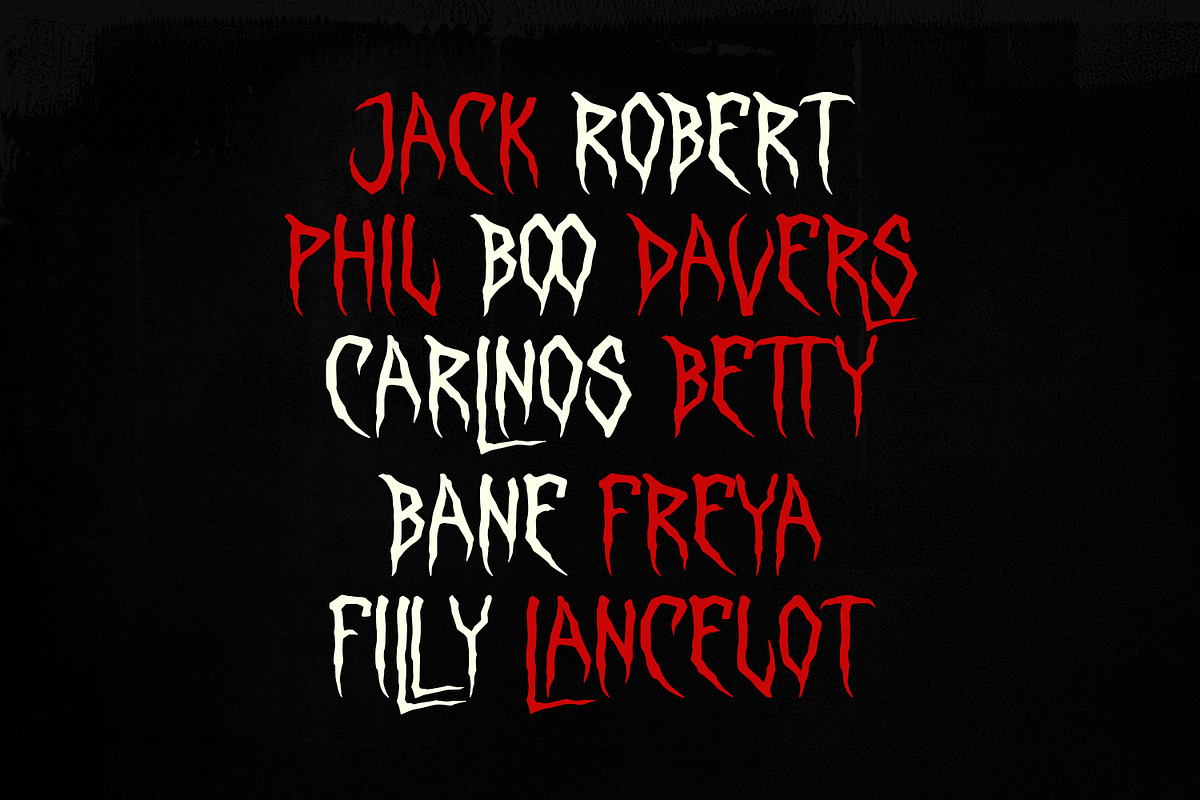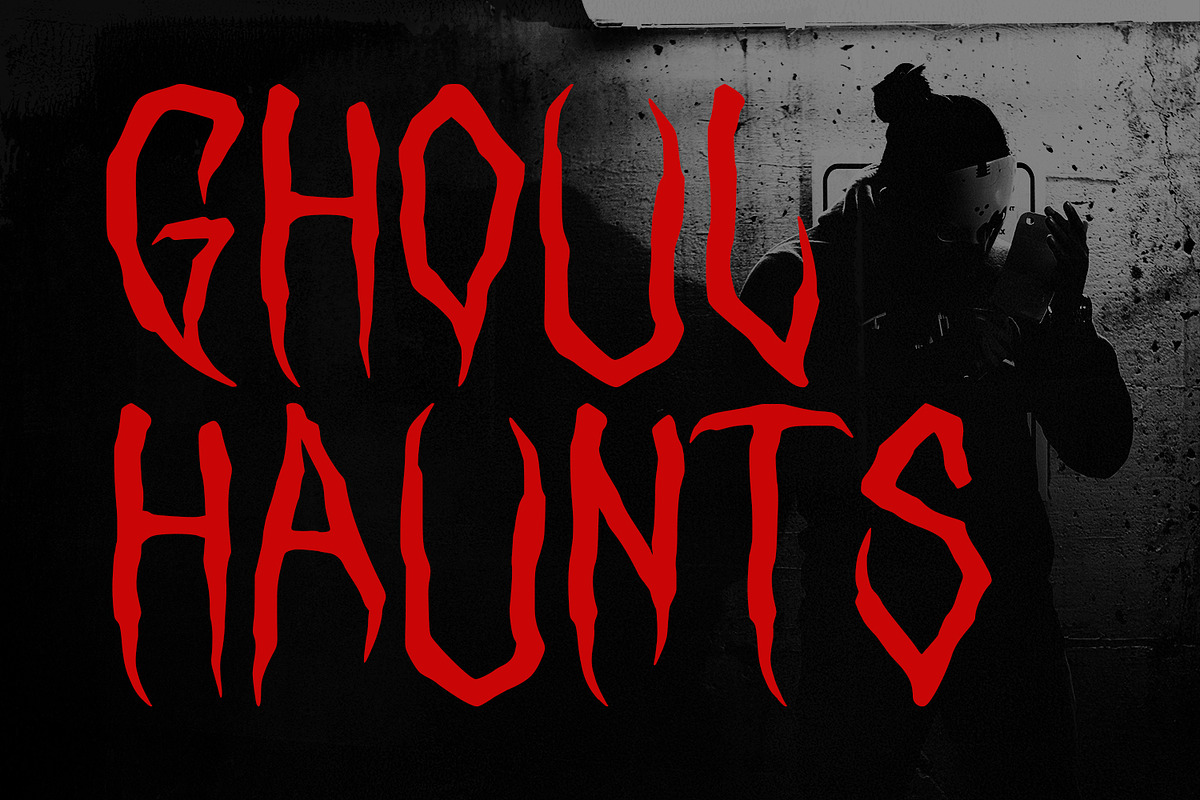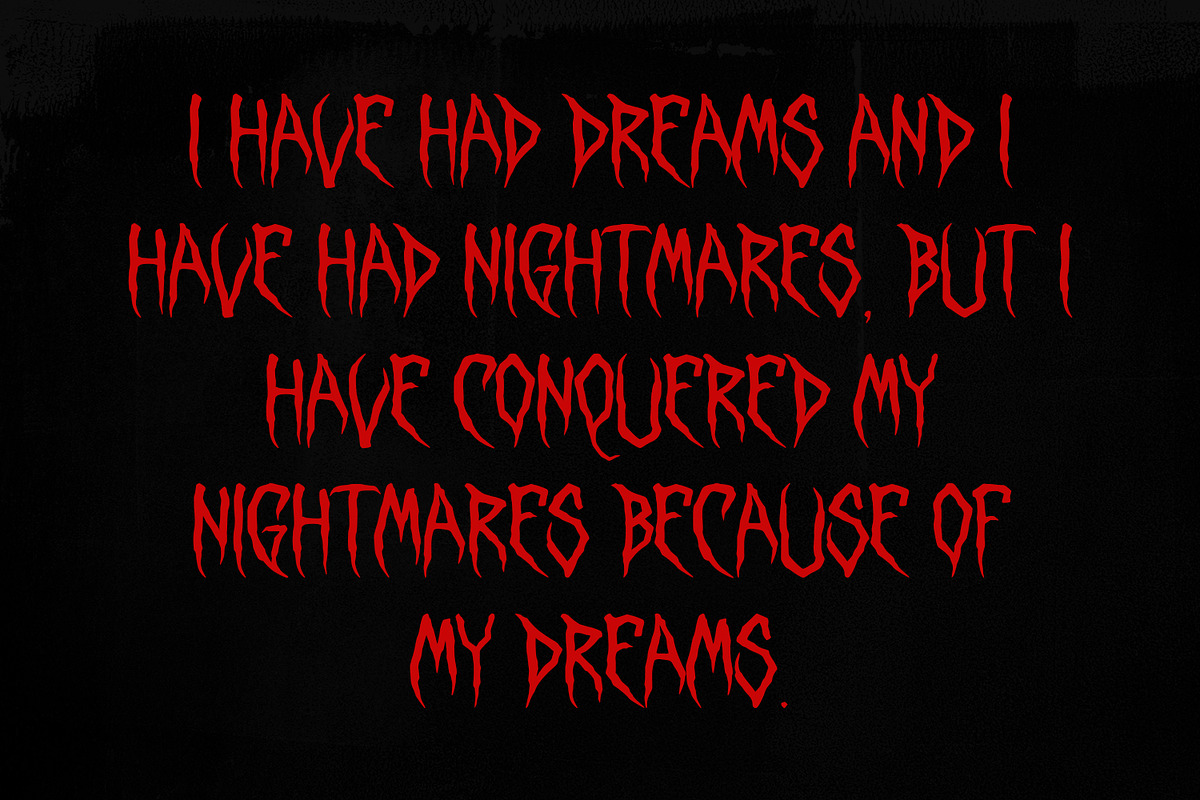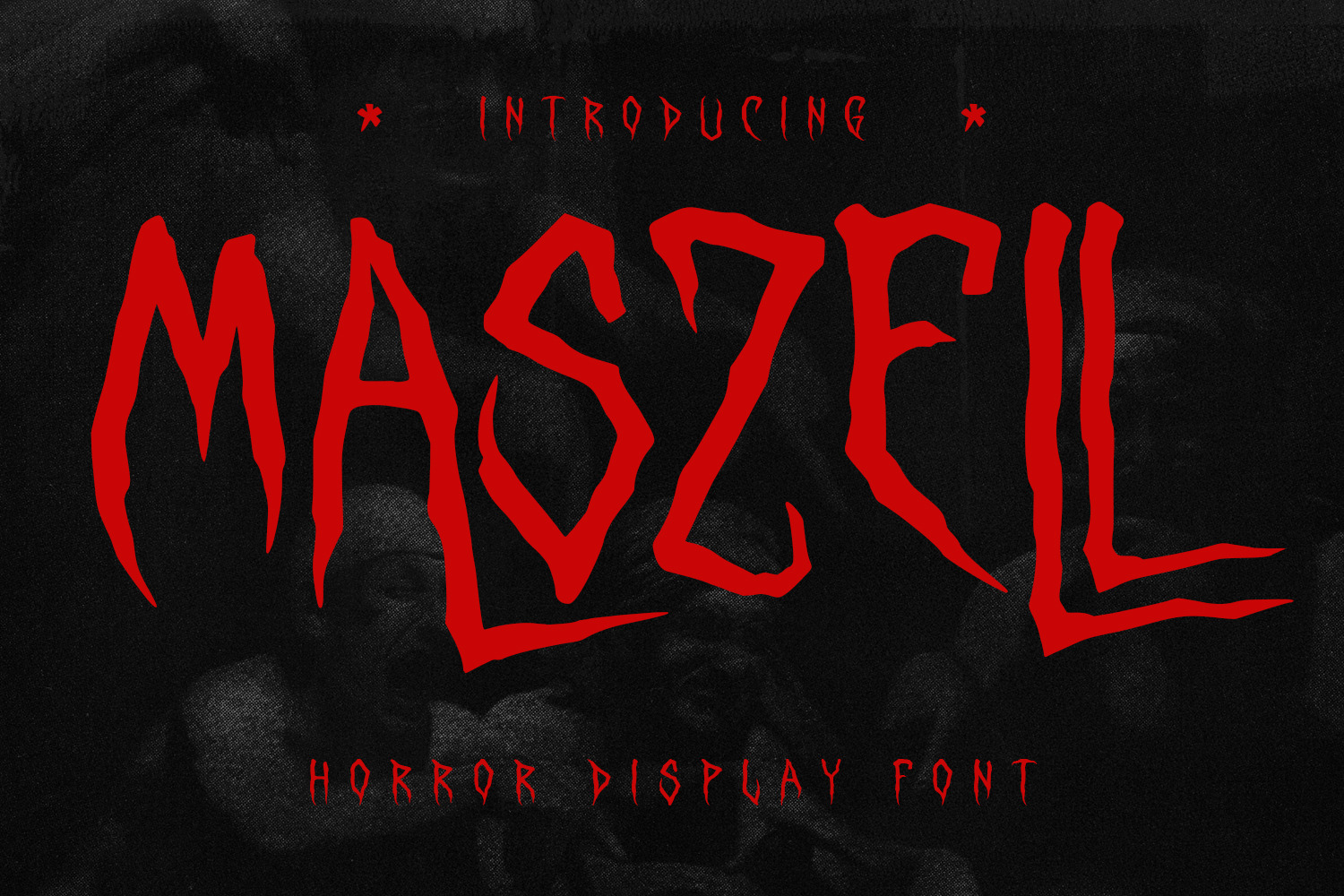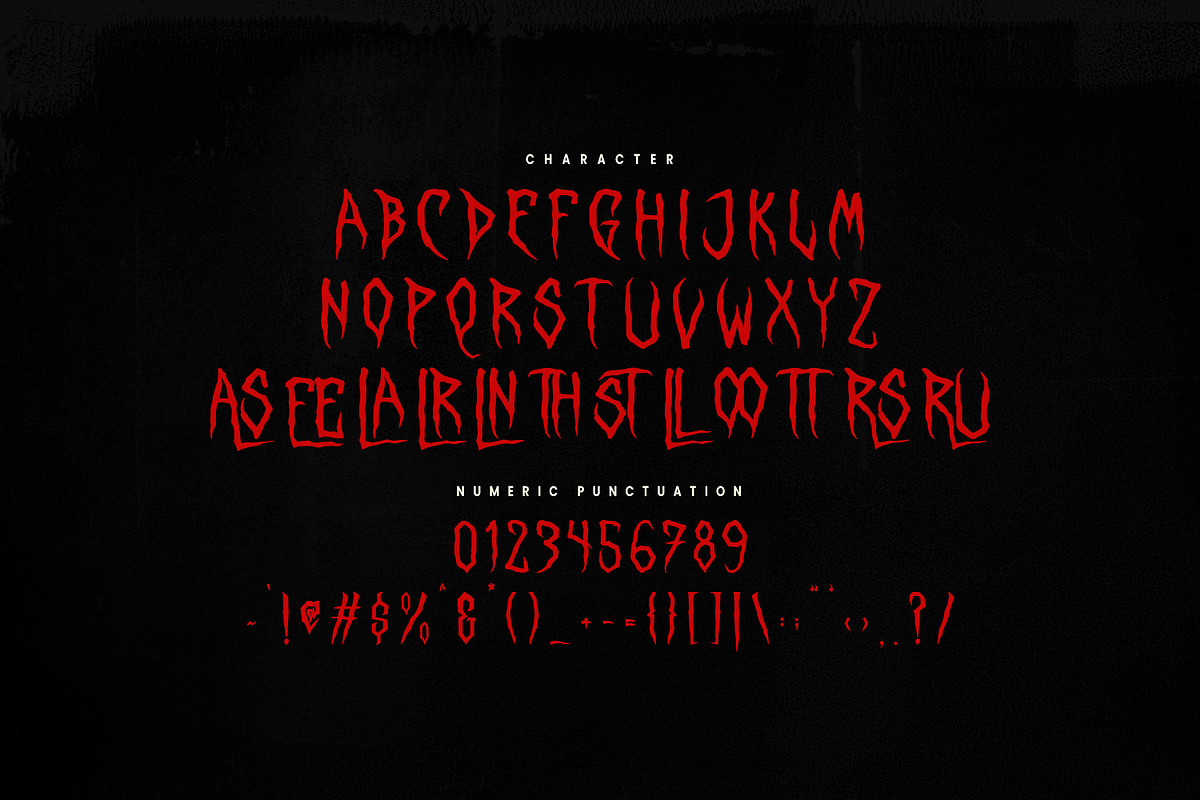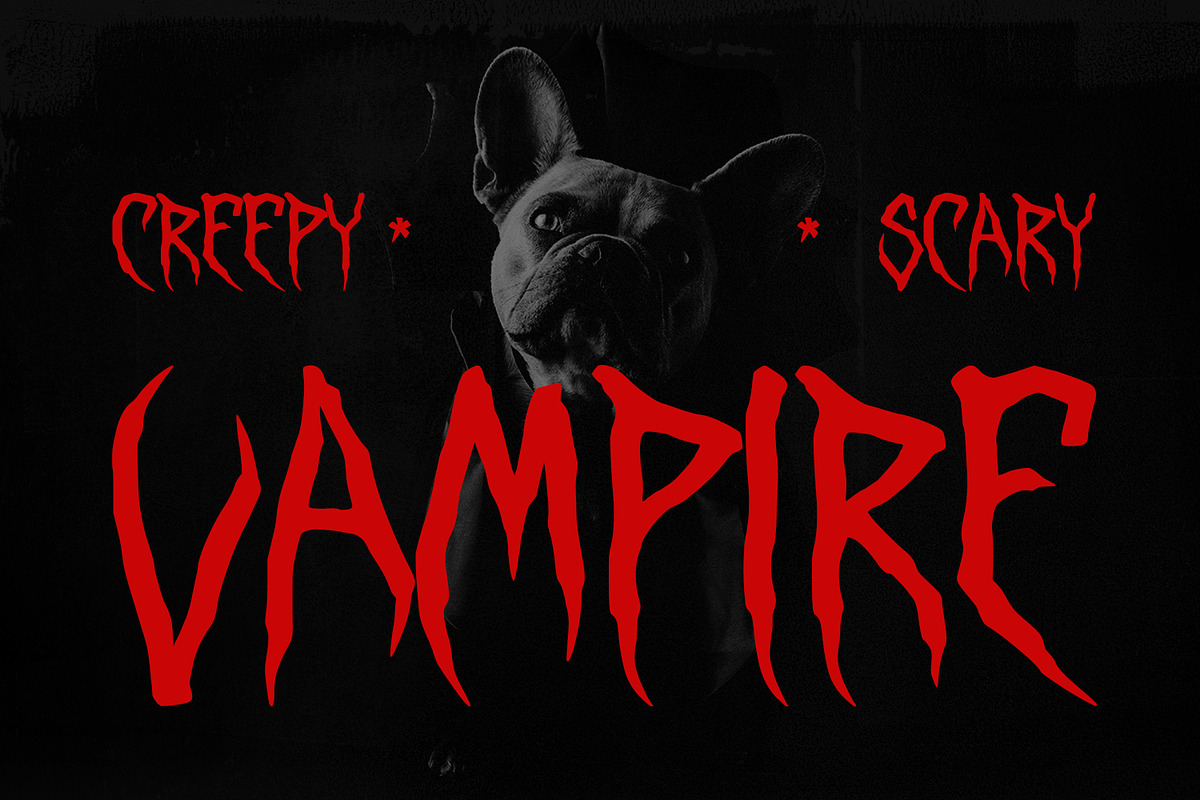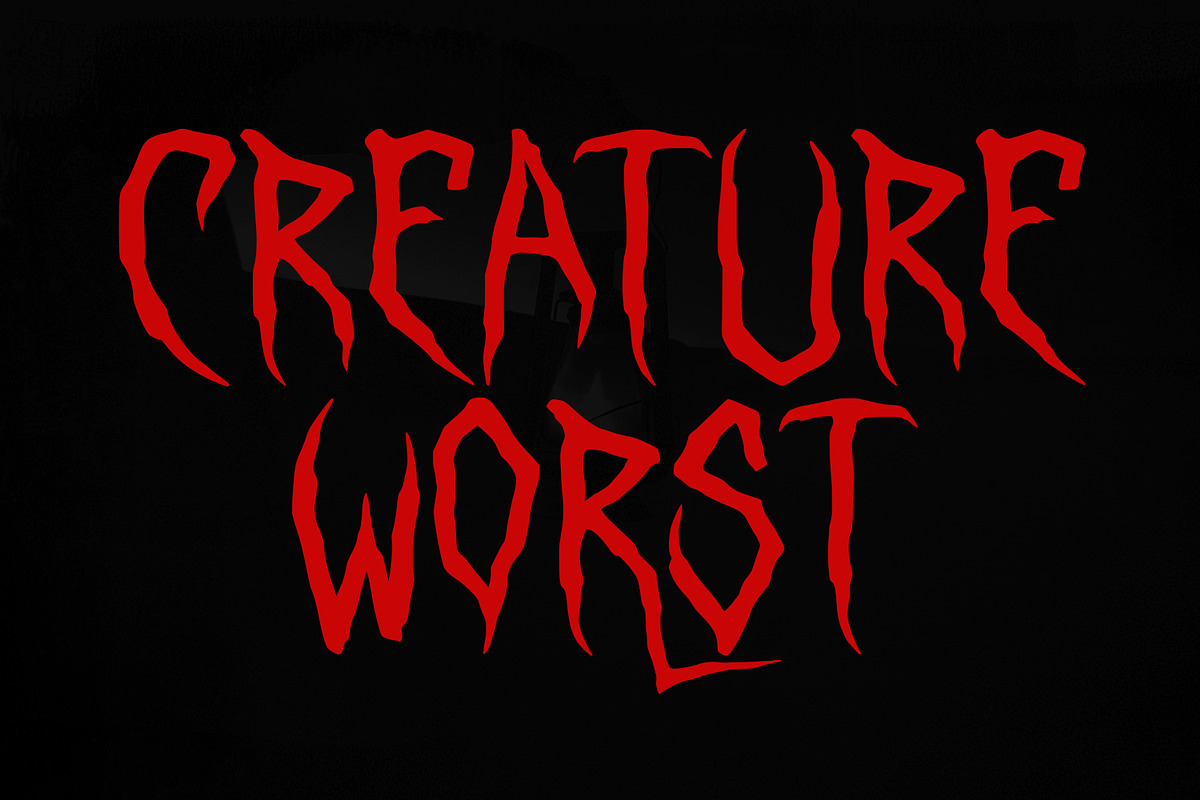
Maszell Horror Display Font
Maszell is a Horror Vibe Decorative display font. With Bold Sharp stroke, Upright and fun character with a bit of ligatures. To give you an extra creative work. Maszell font support multilingual more than 100+ language. This font is good for logo design, Social media, Movie Titles, Books Titles, a short text even a long text letter and good for your secondary text font with Script. Make a stunning work with Maszell font.